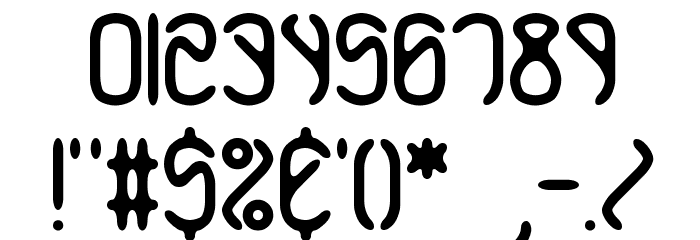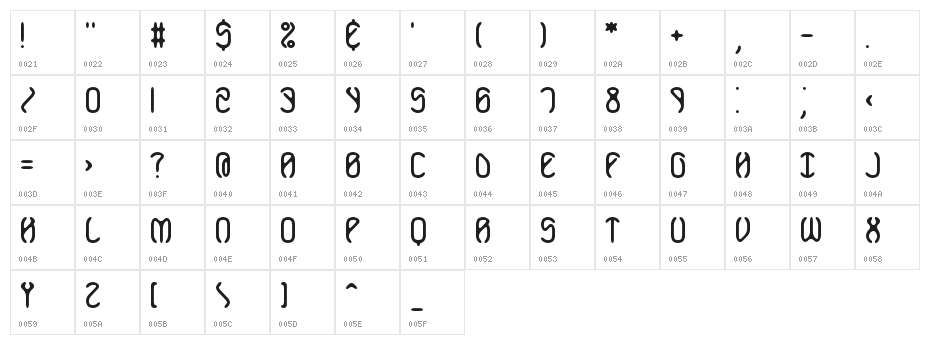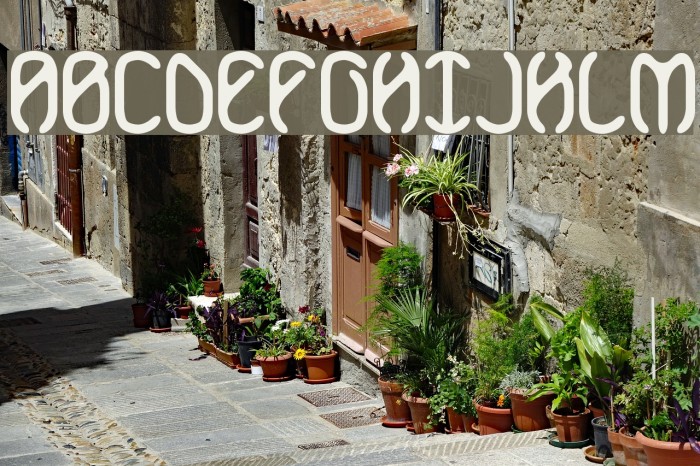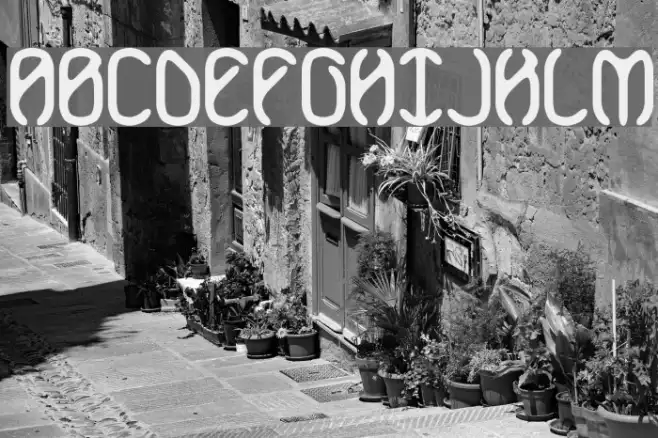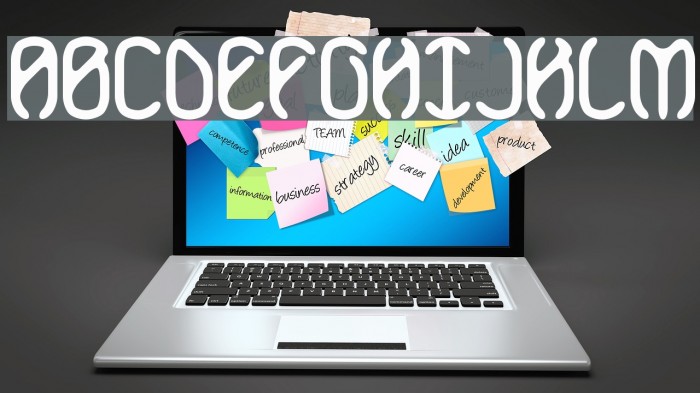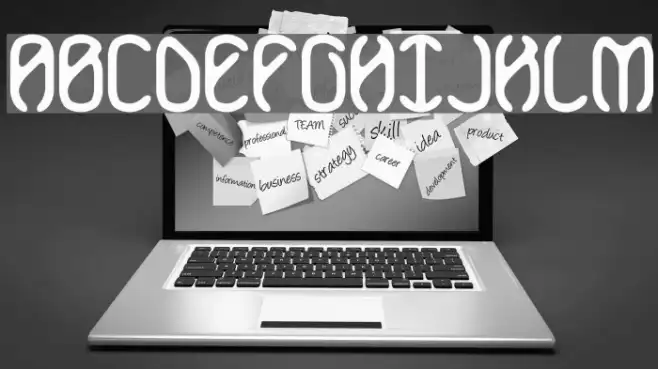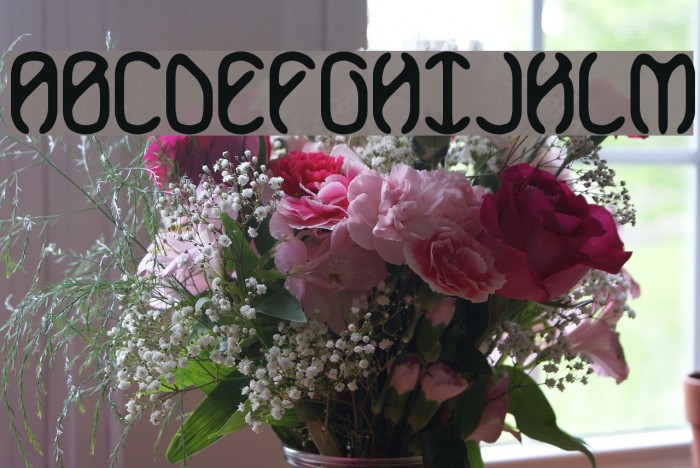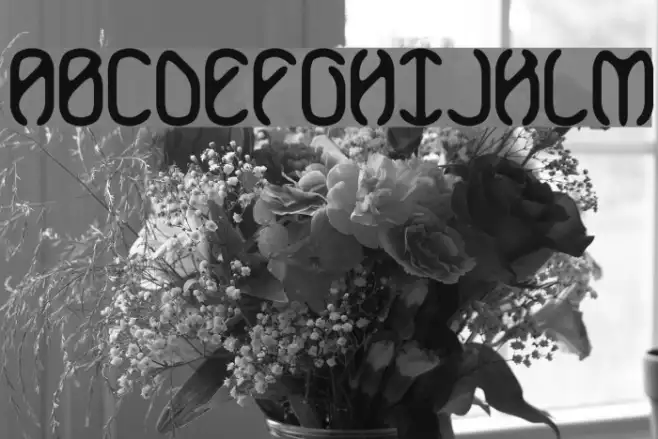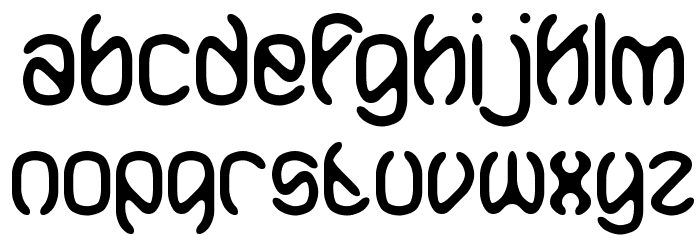
Mobilize BRK Font
Mobilize BRK Description
This font features a unique and bold design with rounded, thick strokes that create a sense of movement and energy. The characters have a consistent width, giving the font a monospaced appearance, yet they maintain a playful and decorative style. The uppercase and lowercase letters share a similar structure, enhancing readability while maintaining a distinct artistic flair. Numbers and special characters are designed to match the overall style, making them easily integrated into various design projects. The font's boldness and distinctive look make it suitable for eye-catching headlines and creative displays.